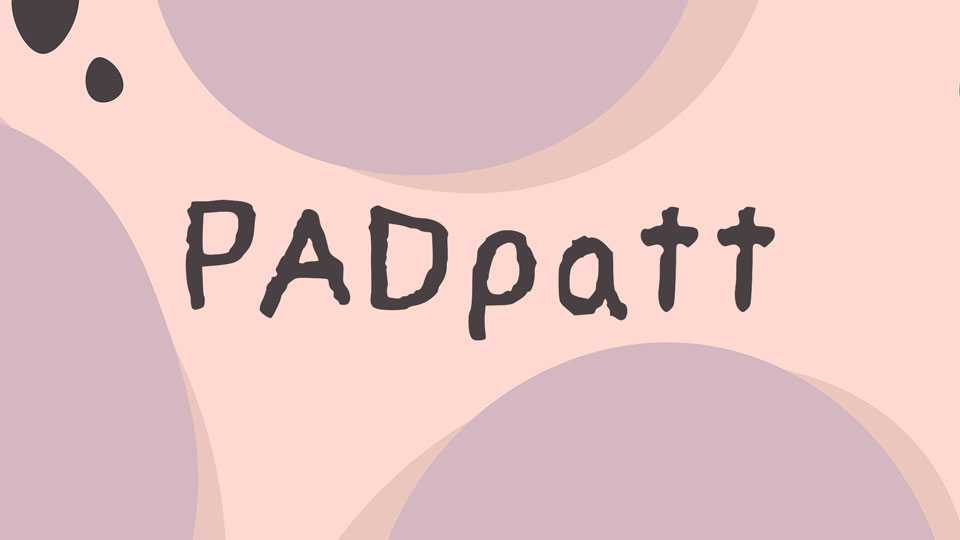
Download PADpatt font, a casual and natural hand-drawn font that brings an organic touch to your designs. The font features subtle irregularities, creating a warm and inviting typographic experience reminiscent of hand-written notes or sketches.